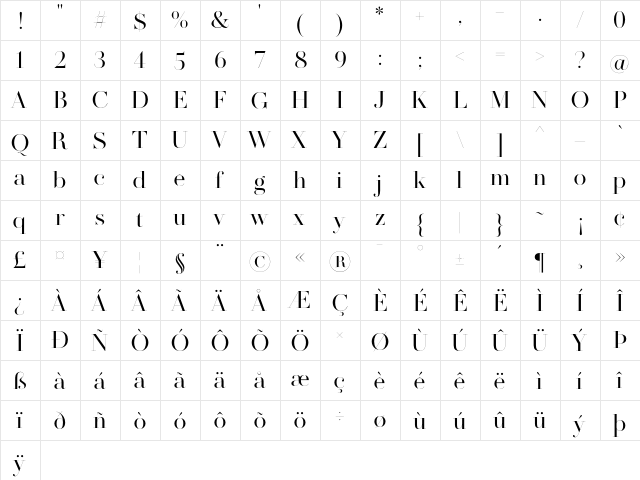
MADE SAONARA Regular
| Foundry | MadeType |
| Designer | MadeType |
Design Context for MADE SAONARA Typeface
MADE SAONARA offers clean, dependable letterforms without strong stylistic allegiance, making it a practical choice for designers who need flexibility.